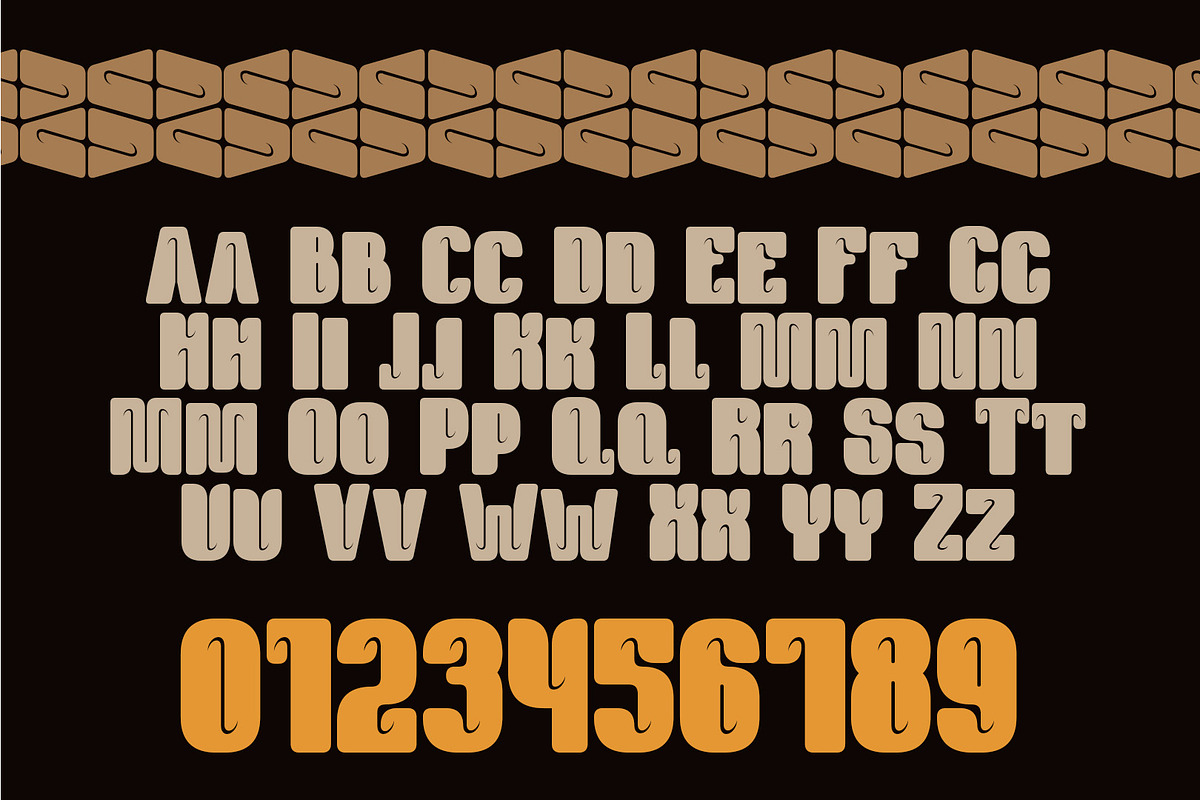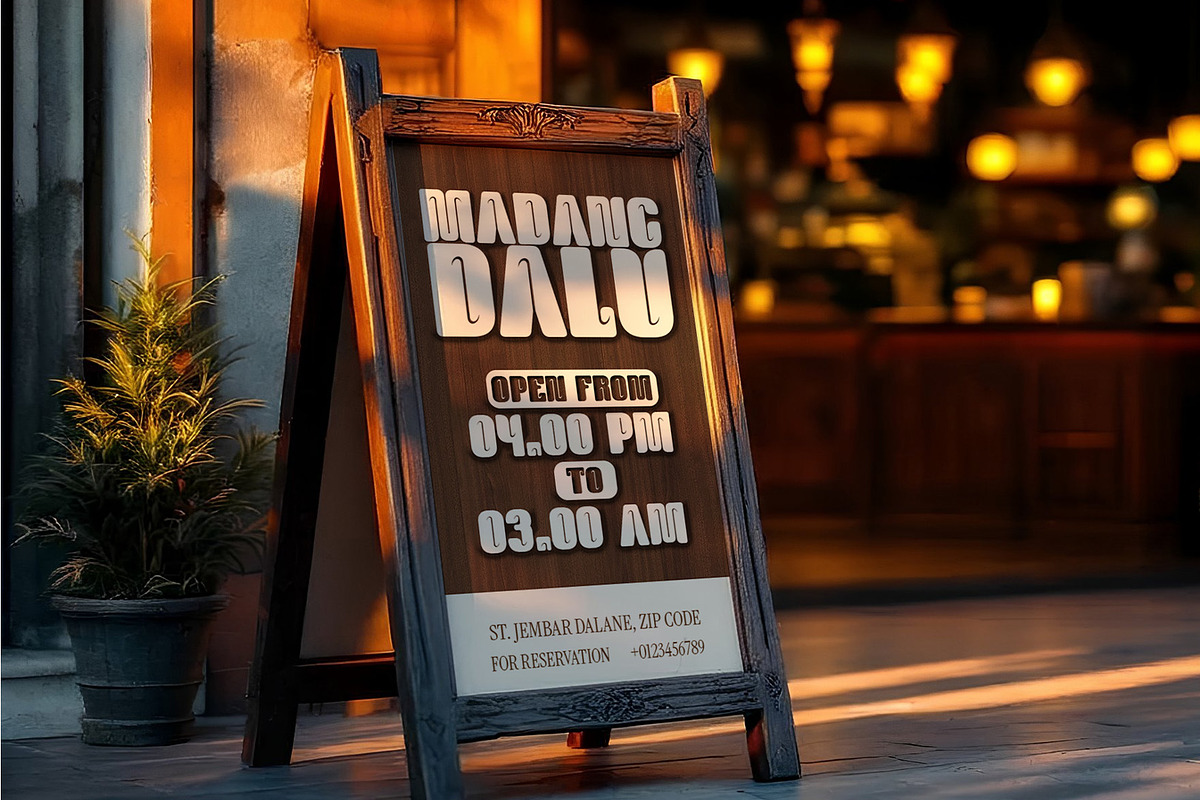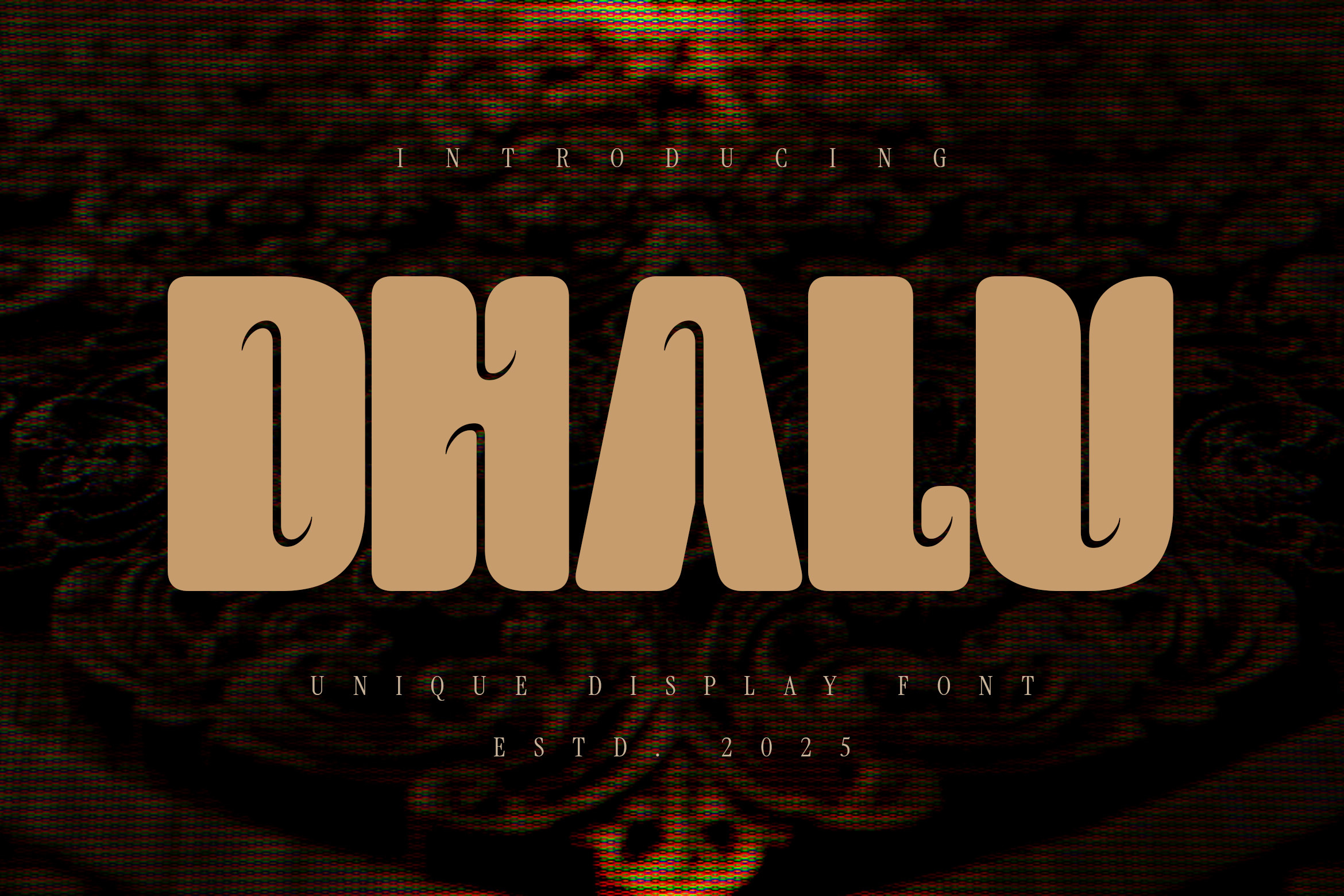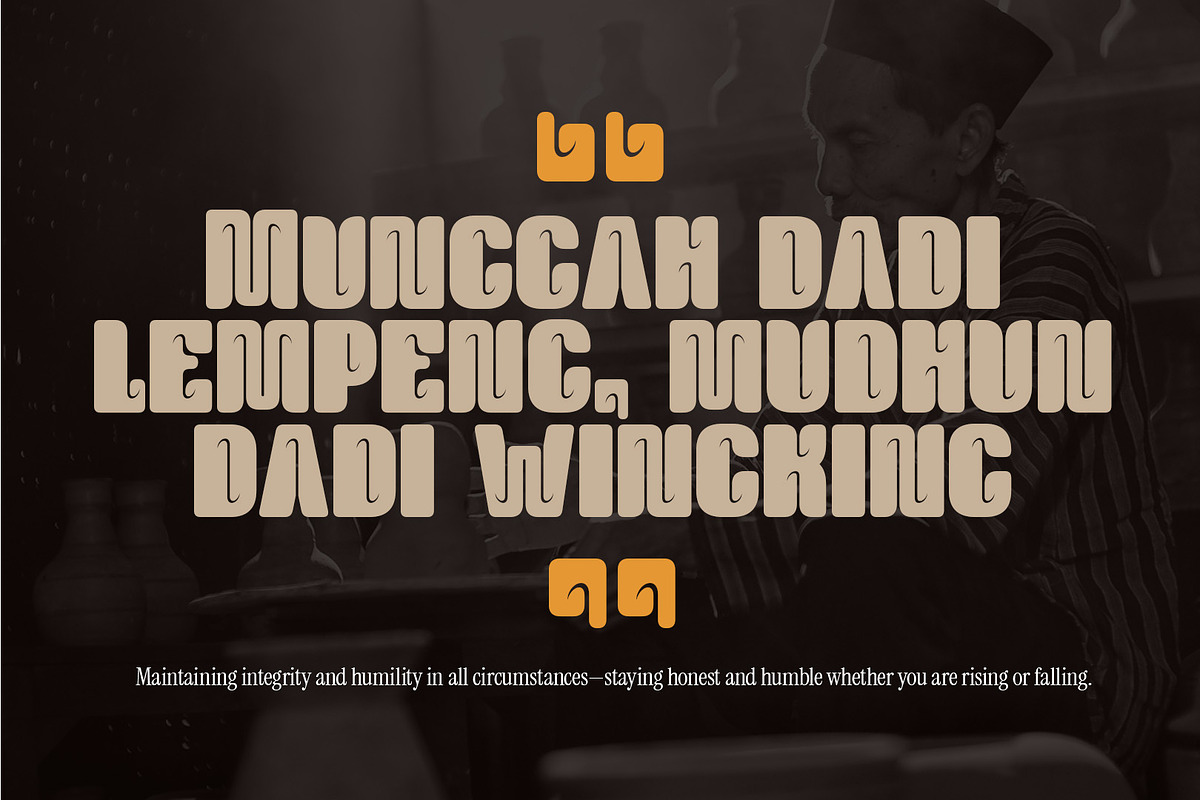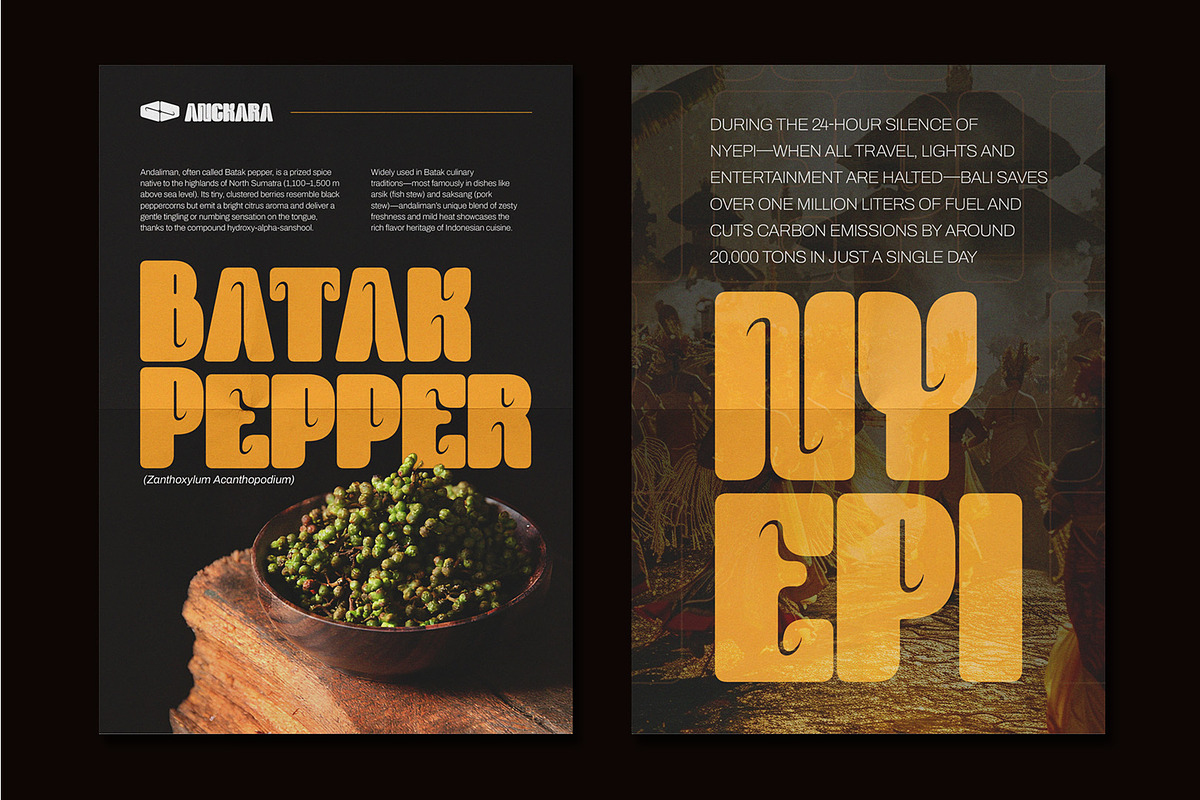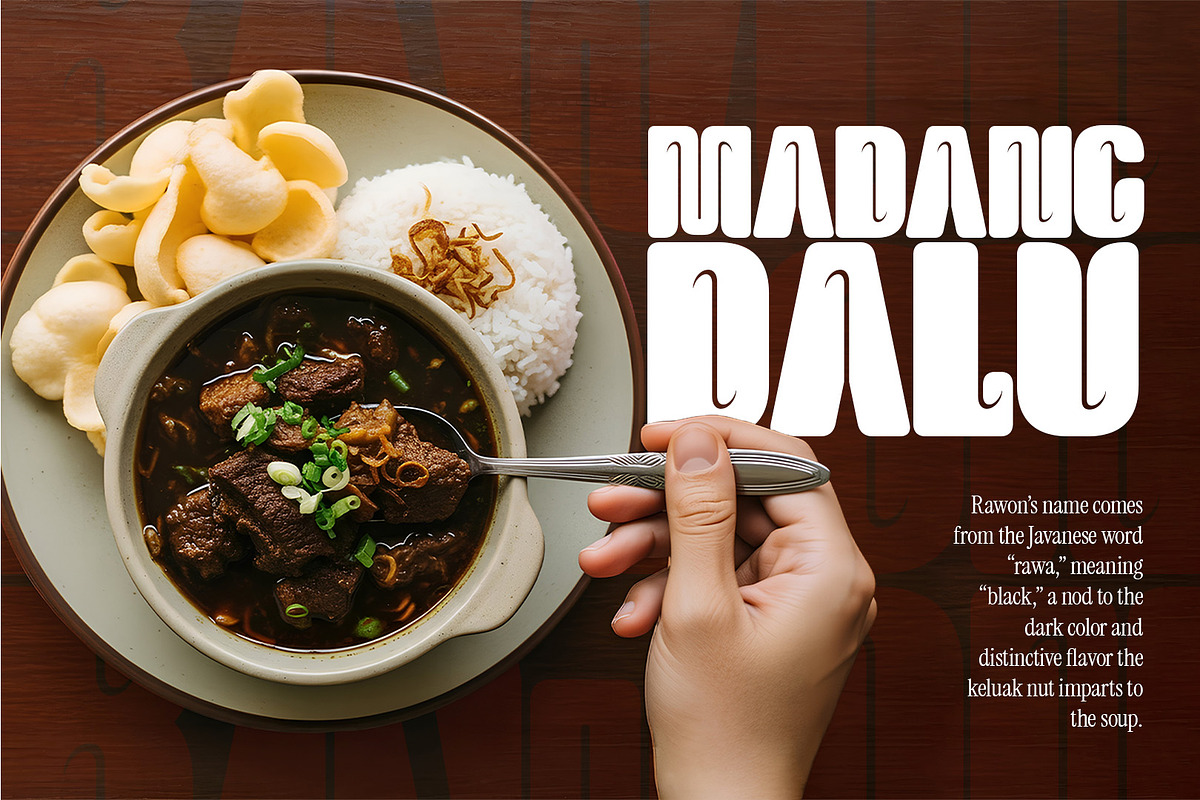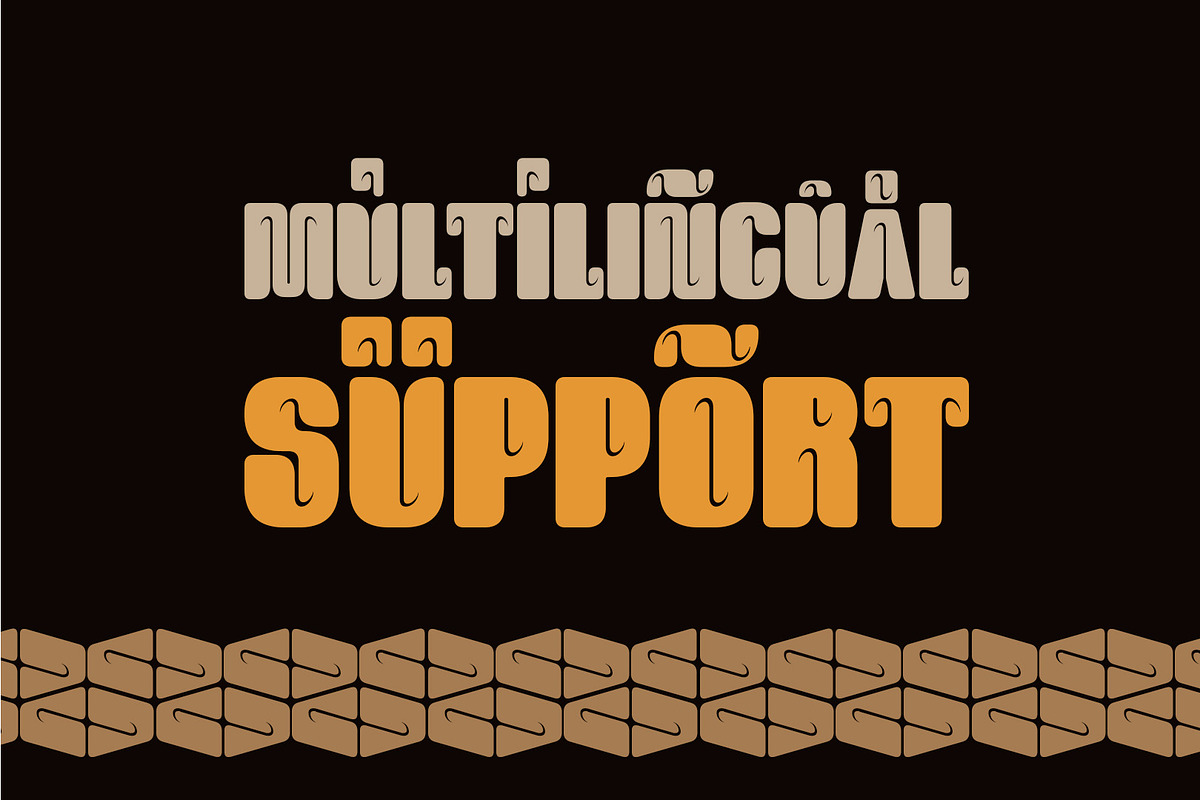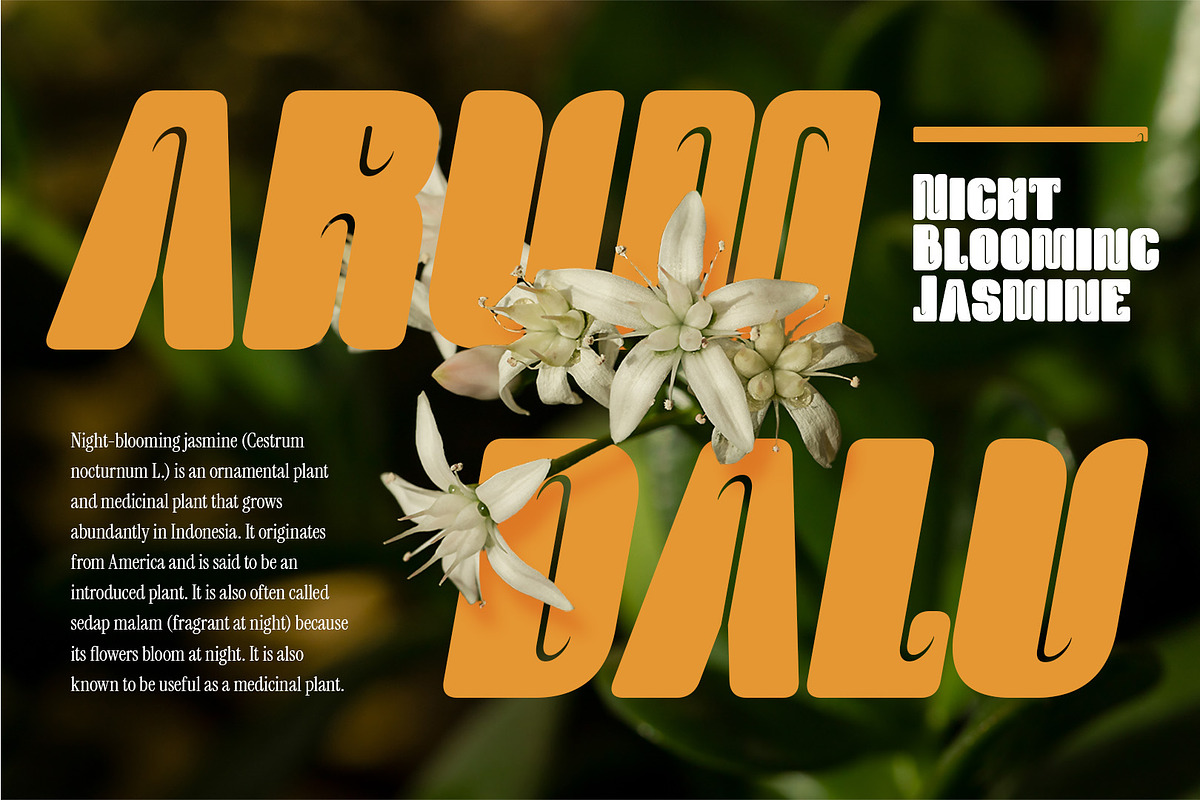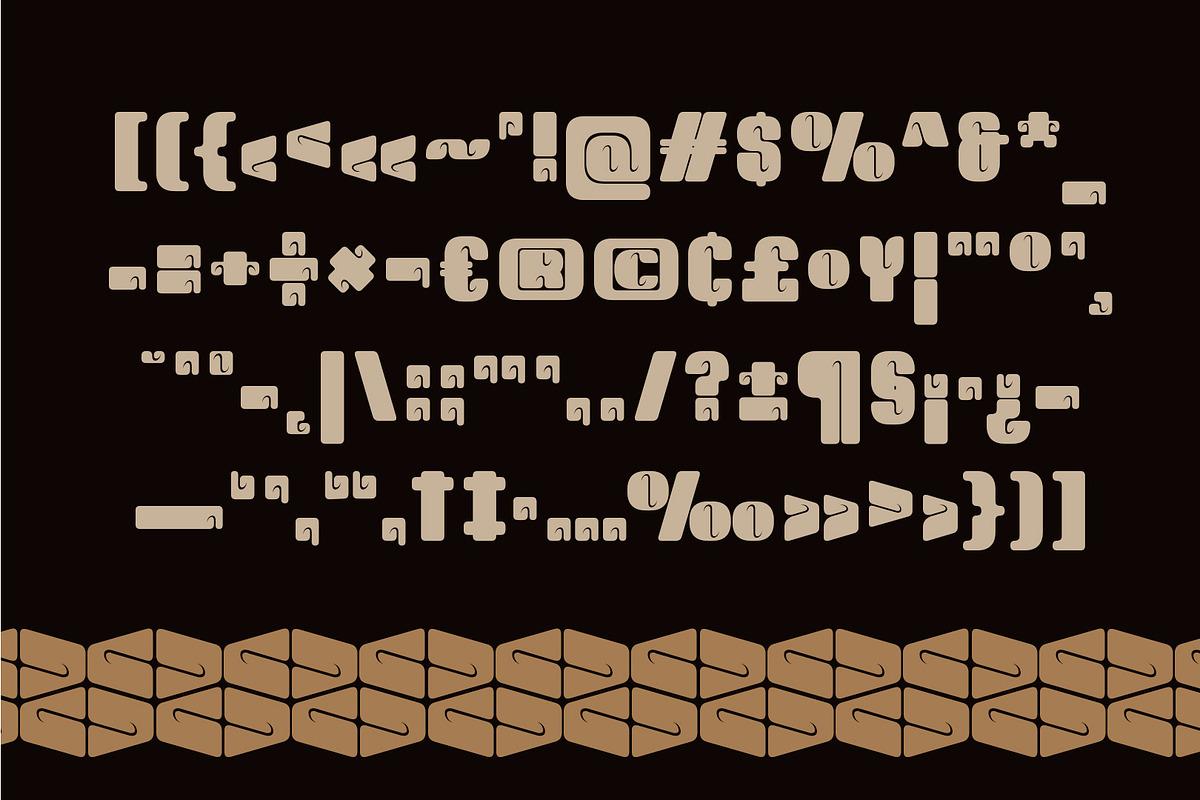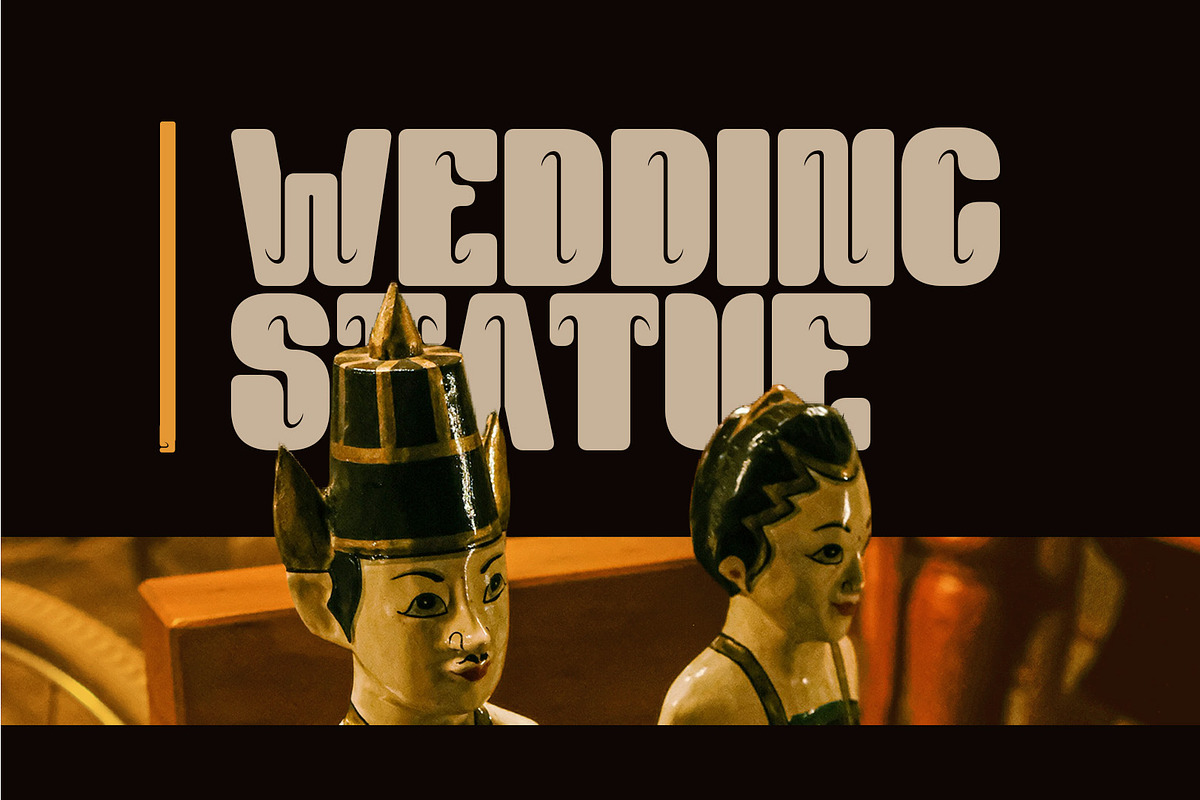
Dhalu - Display Sans Font
Dhalu is a distinctive display font characterized by its bold, rounded forms and substantial stroke weight. Each character—from uppercase letters to numbers and symbols—features a unique, slightly playful shape that commands attention. The font’s thick strokes and smooth curves make it ideal for headlines, logos, posters, and other designs that demand a strong visual presence.
Beyond its standout appearance, Dhalu maintains excellent readability even at large sizes. Its rounded edges and consistent weight give it a friendly, modern vibe, suitable for a variety of contexts: from futuristic interfaces and tech branding to whimsical children’s books and packaging. Dhalu effortlessly balances personality and legibility, making it a versatile choice for creative projects.